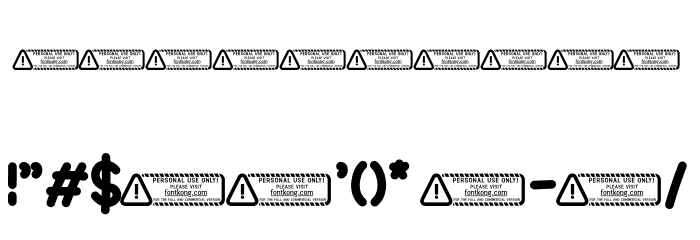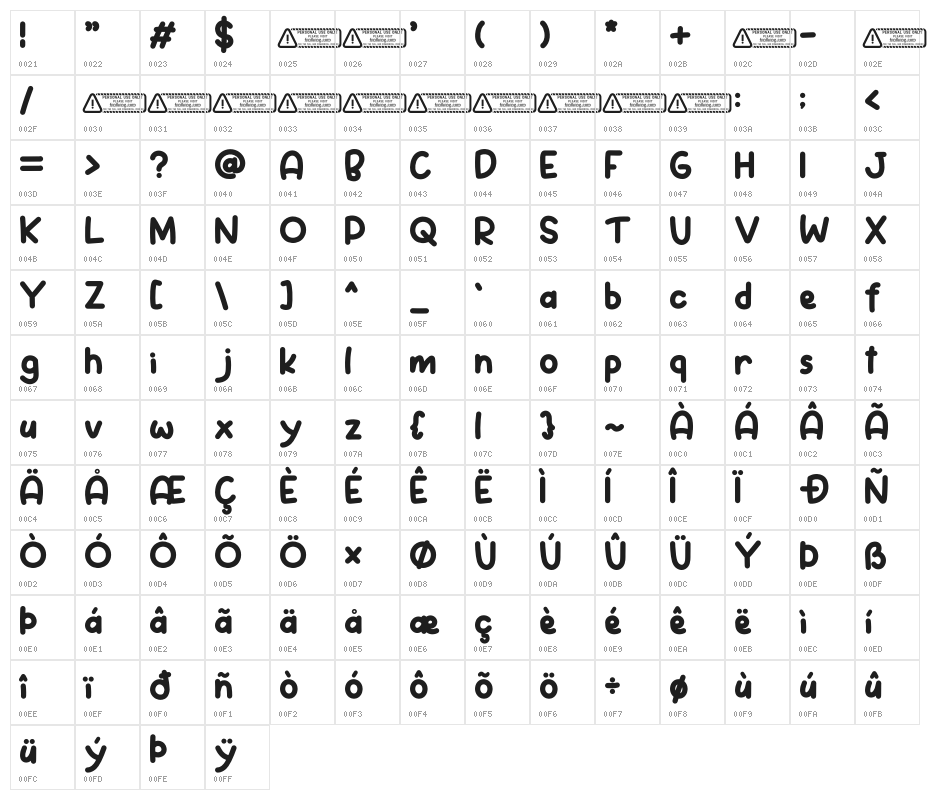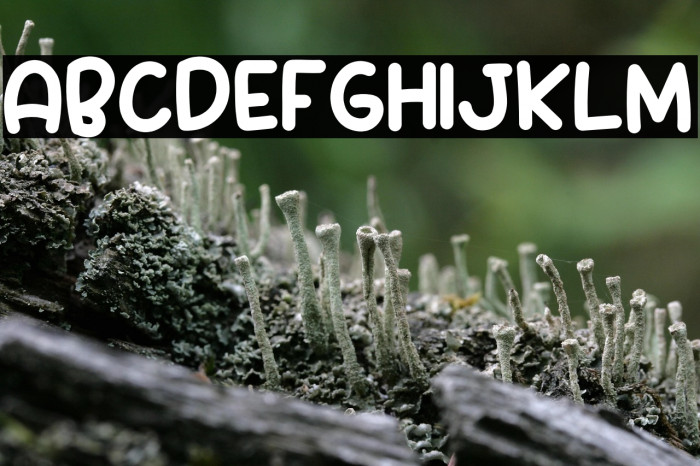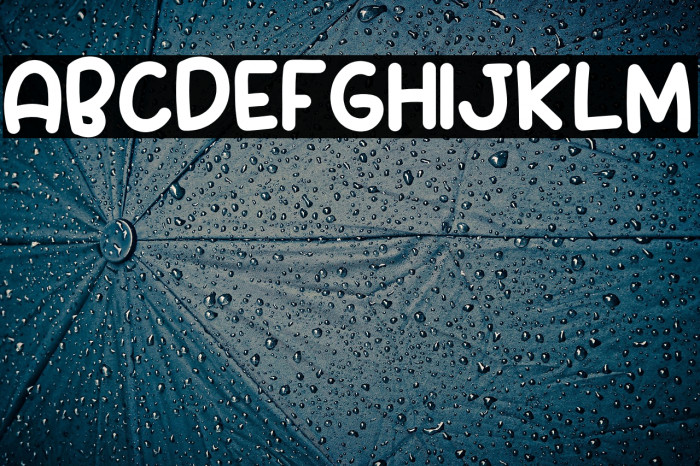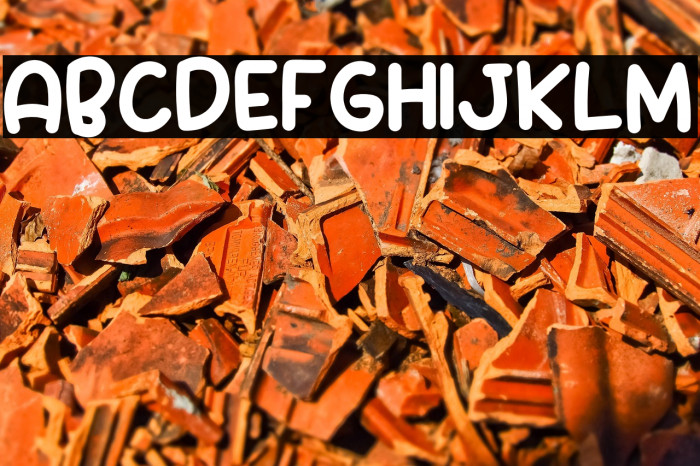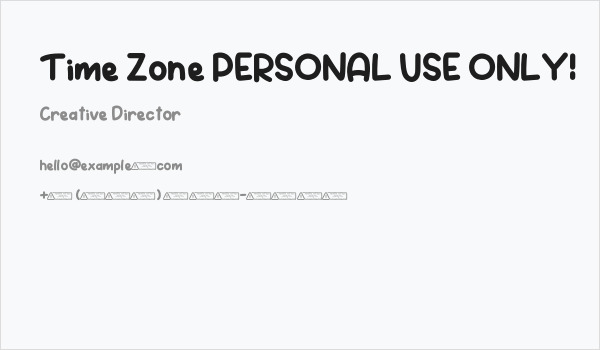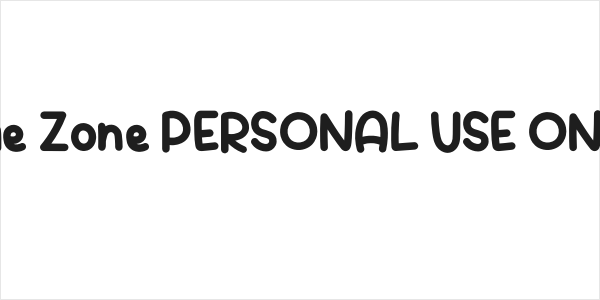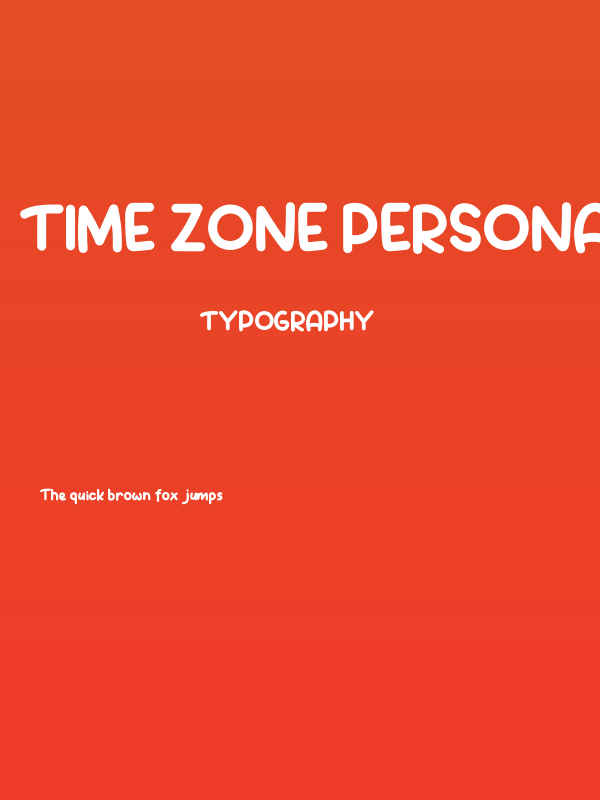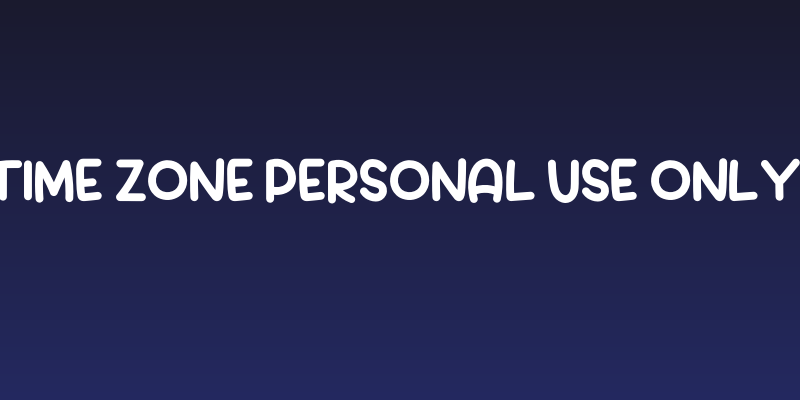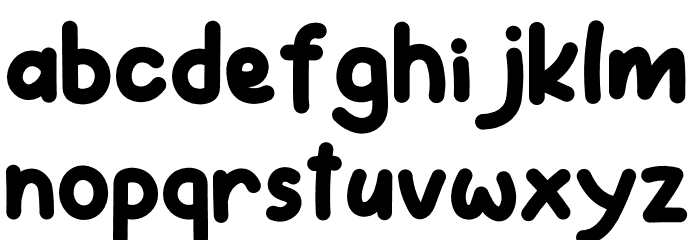
Time Zone PERSONAL USE ONLY! Font
Time Zone PERSONAL USE ONLY! Description
This playful and bold font features rounded, thick strokes that give it a friendly and approachable appearance. The characters are slightly irregular, adding a whimsical touch that makes it stand out. The uppercase letters maintain a consistent height, while the lowercase letters are slightly smaller, enhancing readability. The numbers and special characters are designed with the same playful style, ensuring a cohesive look across all text. This font is ideal for projects that require a fun and informal tone.
| Proposed Projects | Ideal for children's books, playful branding, casual invitations, and social media graphics. |